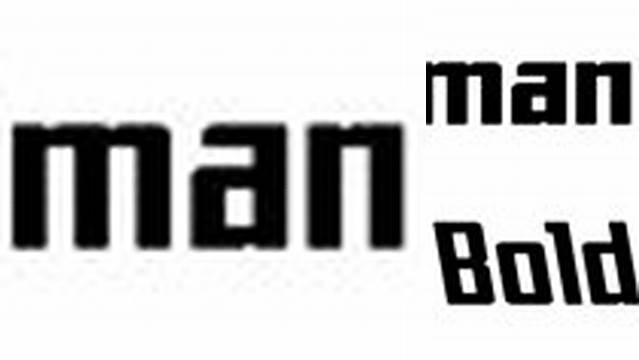
Rollman Bold Font: Free Download & Usage Guide
Hey guys! Are you on the hunt for a font that’s both striking and versatile? Look no further! Today, we're diving deep into the world of Rollman Bold, a font that’s been making waves in the design community. We’ll cover everything from where to snag a free download to how to use it like a pro. So, buckle up and let's get started!
1. What is Rollman Bold Font?
Rollman Bold is a typeface that commands attention. It's a bold, modern font that's perfect for headlines, posters, and anything else where you want your message to stand out. This font has a unique personality that blends strength and sophistication, making it a go-to choice for designers across various industries. Whether you're working on a branding project, a website design, or even a social media campaign, Rollman Bold can add that extra oomph you're looking for. Its clean lines and robust character shapes ensure readability while maintaining a strong visual impact. The versatility of Rollman Bold also means it pairs well with a variety of other fonts, giving you the flexibility to create diverse and engaging designs. Imagine a sleek logo, a powerful call-to-action button, or even the title of a captivating book – Rollman Bold is often the silent yet impactful hero behind these visual elements. So, before we delve into the nitty-gritty of how to download and use it, let's appreciate why this font has become such a staple in the designer's toolkit. It's not just a font; it's a statement.
2. Key Features of Rollman Bold
What makes Rollman Bold so special? Let's break it down. Firstly, its bold weight gives it a commanding presence. This isn't a font that fades into the background; it's designed to be noticed. The thick strokes and well-defined letterforms ensure that it remains legible even at smaller sizes, which is a huge plus for various applications, from print to digital. Secondly, Rollman Bold often features a contemporary design, incorporating clean lines and a modern aesthetic. This makes it suitable for a wide range of design styles, from minimalist to more complex compositions. You might find that it includes a comprehensive character set, supporting various languages and special characters, which broadens its usability for international projects. Another key feature often seen in Rollman Bold is its versatility in pairing with other fonts. It works exceptionally well with lighter, more delicate fonts, creating a visual contrast that’s both pleasing and effective. Think of pairing it with a sleek sans-serif for body text or a classic serif for a touch of elegance. Finally, many variations of Rollman Bold come with stylistic alternates, giving designers the option to customize the font to fit their specific needs. Whether it's a slightly different letter shape or an alternative character, these nuances can add a unique flair to your designs. In essence, Rollman Bold isn't just about being bold; it's about offering a blend of functionality, style, and versatility.
7. Using Rollman Bold in Graphic Design
Now that you’ve got Rollman Bold installed, let’s talk about how to use it effectively in graphic design. This font is a powerhouse, but like any tool, it’s all about how you wield it. Rollman Bold is particularly well-suited for headlines and titles. Its strong, bold character makes it grab attention and set the tone for your design. Think of posters, website headers, or book covers – places where you want to make a statement. However, because it's so bold, it's generally not the best choice for large blocks of body text. Using it sparingly in smaller paragraphs can work, but too much bold can become overwhelming and hard to read. Pairing Rollman Bold with a lighter, more legible font for body text is a great strategy. Consider a classic sans-serif or a slightly condensed font for the main text, which will create a nice visual contrast and make your design more balanced. Experiment with different font pairings to see what works best for your project. In terms of color, Rollman Bold works well with both vibrant and muted palettes. Its boldness can stand out against a colorful background, but it also looks sophisticated in black and white or with subtle color variations. Don't be afraid to play around with different sizes and weights as well. You might find that a slightly smaller or larger size makes a big difference in how the font looks in your design. Ultimately, the key is to use Rollman Bold strategically, highlighting key elements and ensuring readability. With a little practice, you’ll be using it like a pro in no time!
8. Pairing Rollman Bold with Other Fonts
Font pairing is an art, guys, and choosing the right companion for Rollman Bold can really elevate your designs. Since Rollman Bold is a strong, attention-grabbing font, you'll typically want to pair it with something that offers a bit of contrast – a font that's legible and provides a visual balance. One classic pairing is Rollman Bold with a clean, modern sans-serif font for body text. Think fonts like Open Sans, Lato, or Montserrat. These fonts are highly readable and won't compete with the boldness of Rollman, creating a harmonious visual hierarchy. Another great option is to pair Rollman Bold with a slightly lighter weight of the same font family, if available. This creates a cohesive look while still maintaining contrast between headlines and body text. If you’re looking for something with a bit more personality, consider pairing Rollman Bold with a serif font. A timeless serif font like Garamond or a more contemporary option like Playfair Display can add a touch of elegance and sophistication to your design. The key here is to ensure that the serif font isn't too heavy, as this could clash with Rollman Bold's boldness. When experimenting with font pairings, pay attention to the overall tone and style you want to achieve. A minimalist design might call for a simple sans-serif pairing, while a more creative project could benefit from a serif or even a script font as an accent. Ultimately, the best way to find the perfect pairing is to try out different combinations and see what feels right for your project.
9. Using Rollman Bold for Logos
Rollman Bold can be a fantastic choice for logos, especially if you’re aiming for a strong and impactful brand identity. Its boldness conveys confidence and authority, making it ideal for businesses that want to make a statement. However, like with any font, there are some key considerations to keep in mind when using it for logo design. First, think about the overall message and personality of your brand. Does Rollman Bold align with your brand values? If you’re a tech startup or a modern creative agency, it could be a perfect fit. If you’re a more traditional or elegant brand, you might want to use it sparingly or in combination with a more refined font. Simplicity is key in logo design, so avoid overcrowding your logo with too many elements or decorative features. Rollman Bold's inherent boldness means it doesn't need a lot of embellishment. In fact, a clean, minimalist approach often works best. Consider using just the font itself, perhaps with a subtle graphic element, to create a memorable logo. Pay attention to kerning (the spacing between letters) and tracking (the overall spacing of the text) to ensure that your logo looks polished and professional. Even small adjustments in spacing can make a big difference in the overall appearance of the logo. Finally, make sure your logo looks good in various sizes and applications, from business cards to websites to social media profiles. Rollman Bold's legibility at different sizes makes it a reliable choice, but it's always a good idea to test it out in different contexts. With a thoughtful approach, Rollman Bold can help you create a logo that truly stands out.
24. Rollman Bold for Book Covers
25. Rollman Bold Font Weight
26. Rollman Bold Font Style
27. Rollman Bold Font Kerning
28. Rollman Bold Font Leading
29. Rollman Bold Font Tracking
30. Tips for Using Rollman Bold Effectively
Remember, the key to using any font, including Rollman Bold, effectively is experimentation and attention to detail. Play around with different combinations, sizes, and colors, and always prioritize readability. With a little practice, you'll be creating stunning designs with Rollman Bold in no time! Happy designing, guys!